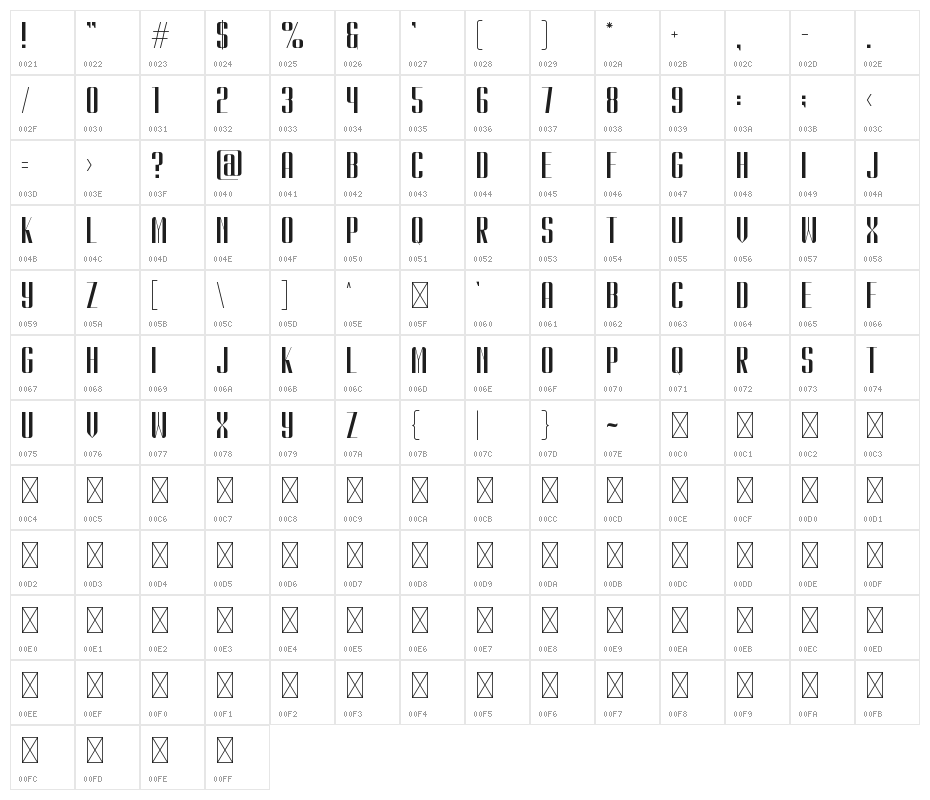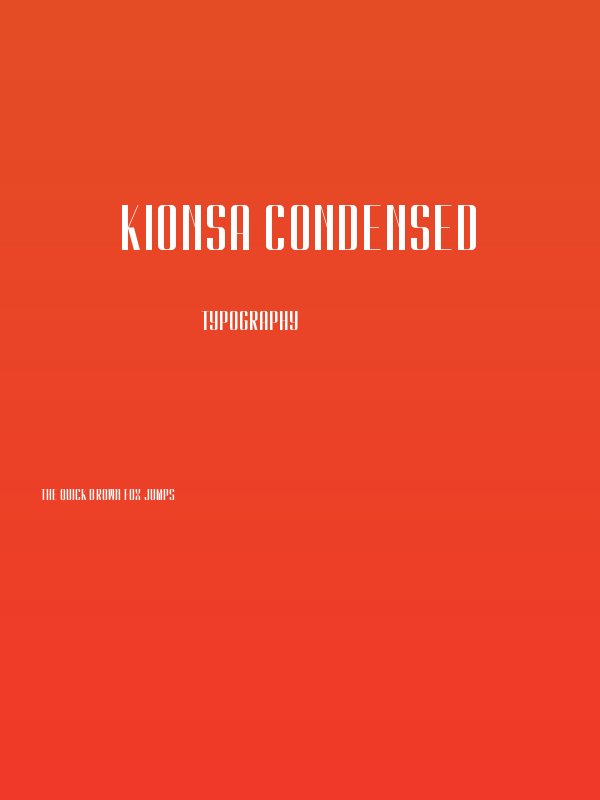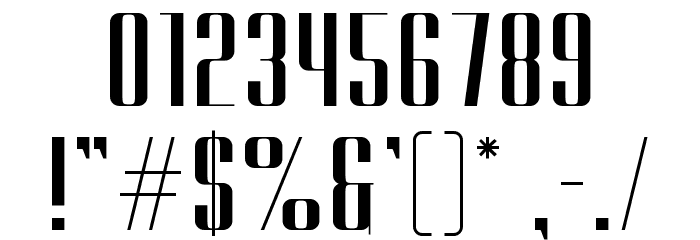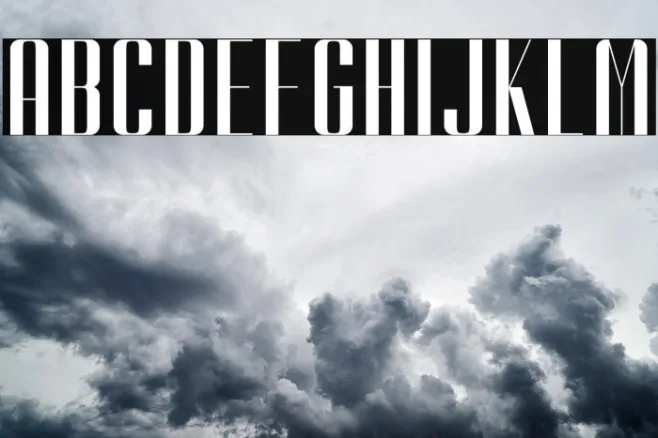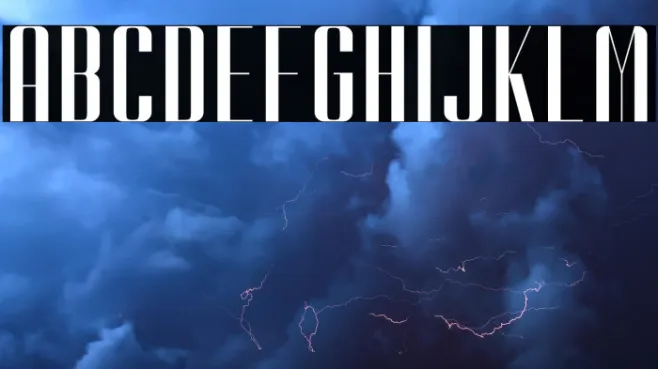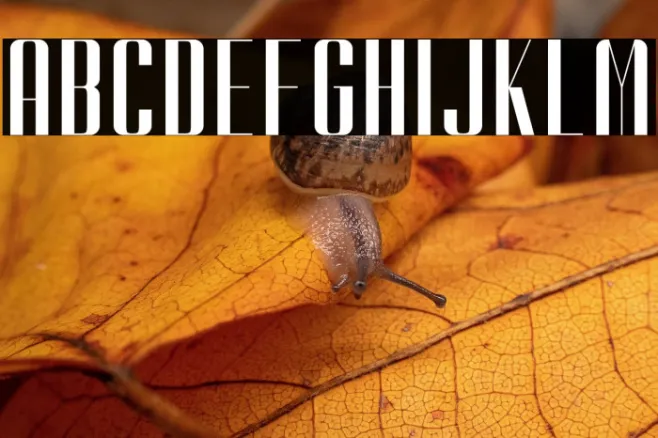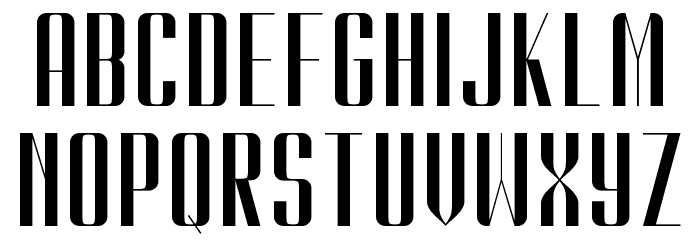
Kionsa Condensed Font
Kionsa Condensed Description
This font features a modern and sleek design with a condensed style, emphasizing verticality and elegance. The characters are tall and narrow, with a high contrast between thick and thin strokes, giving it a sophisticated and stylish appearance. The uppercase letters are particularly striking, with sharp angles and clean lines, while the lowercase letters maintain a consistent aesthetic. The numerals are equally refined, matching the overall geometric and contemporary feel of the font. Special characters are designed to complement the primary alphabet, ensuring a cohesive look across all text elements.
| Proposed Projects | Ideal for fashion magazines, luxury branding, editorial headlines, and modern advertising campaigns. |